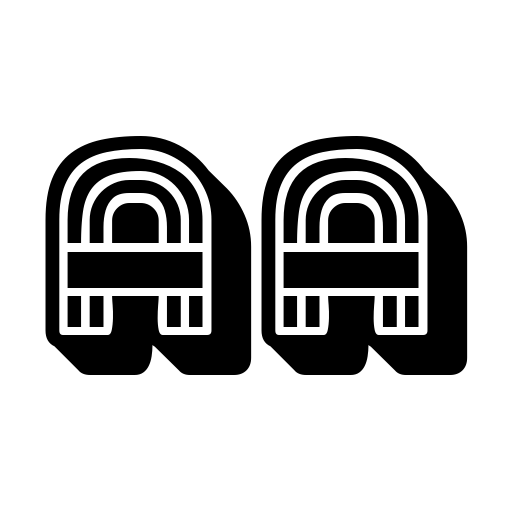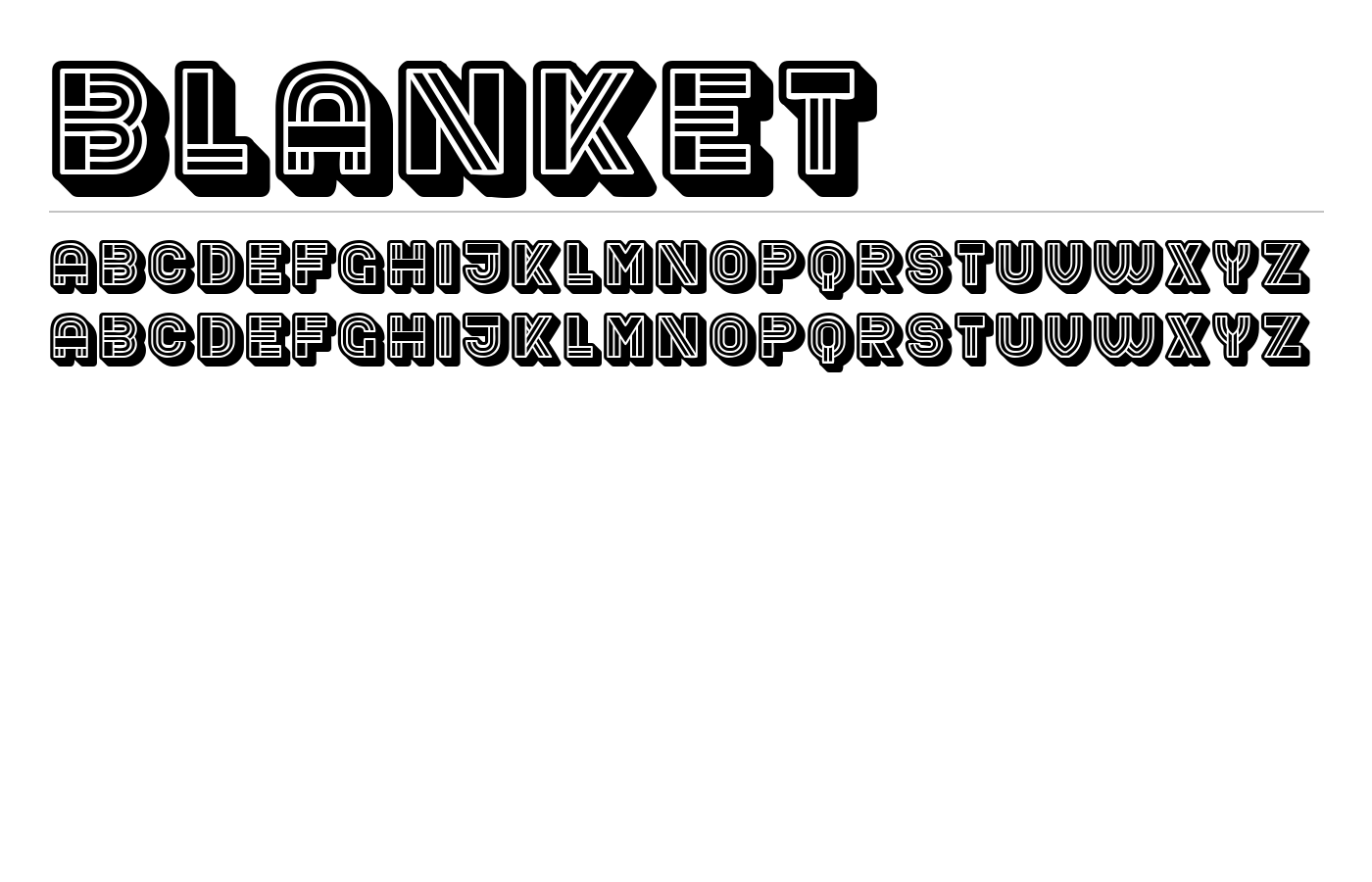
Blanket Font is a bold, decorative sans serif typeface featuring thick, layered strokes with strong shadow effects that create a vibrant, three-dimensional look. Its geometric letterforms and playful stacked lines give it a fun, retro vibe, making it perfect for eye-catching headlines, posters, and branding that want to stand out with a bold, creative personality. This font works well in designs where impact and visual interest are key, especially for entertainment, fashion, or modern vintage-inspired projects.
Blanket Font
About Blanket Font
| Font family | Blanket Font |